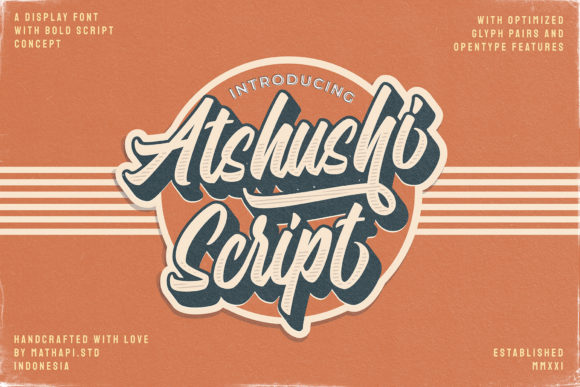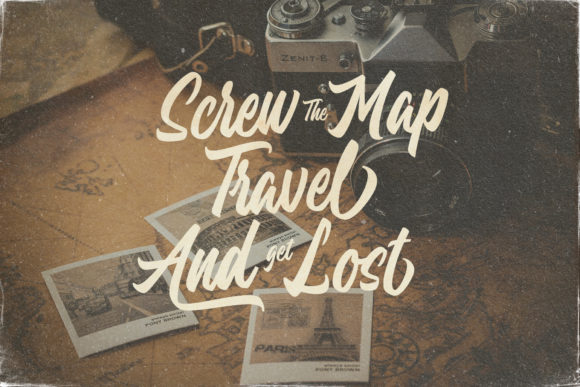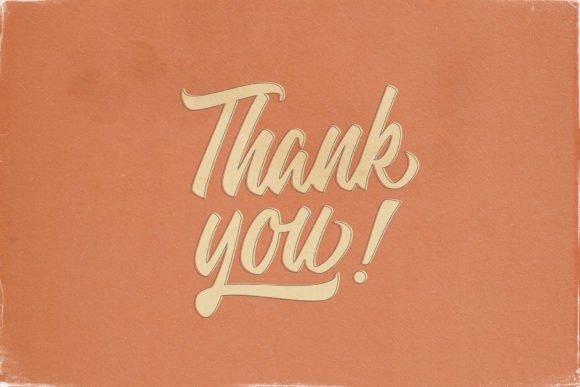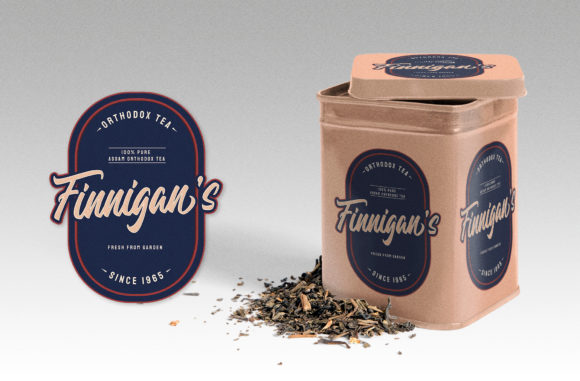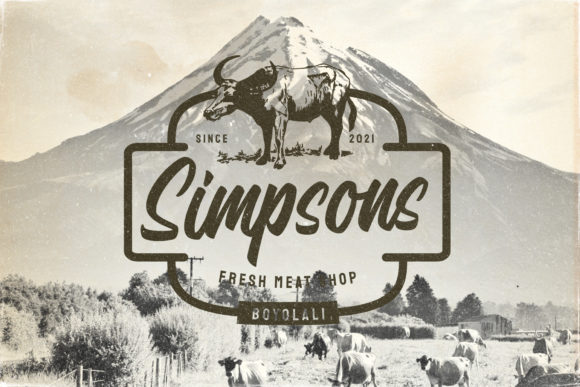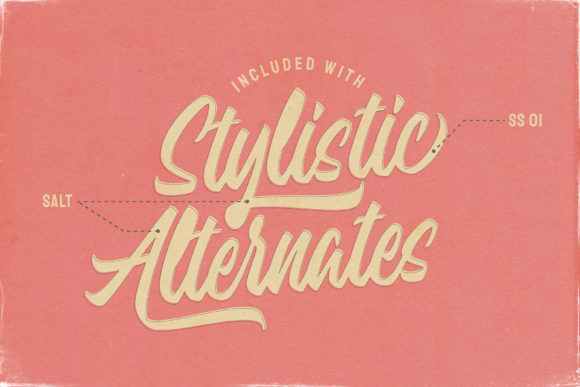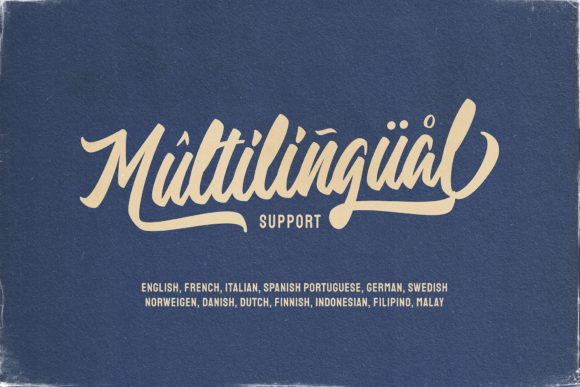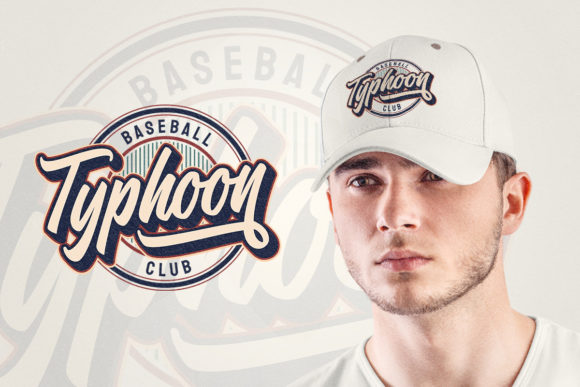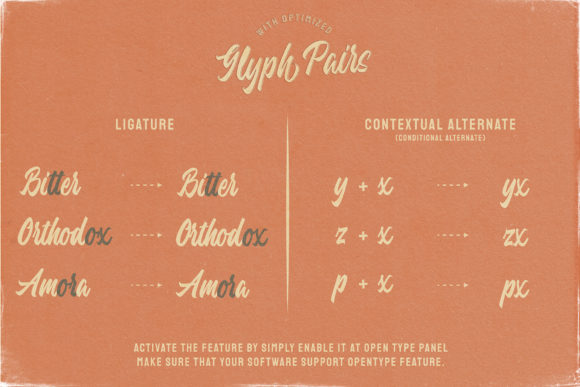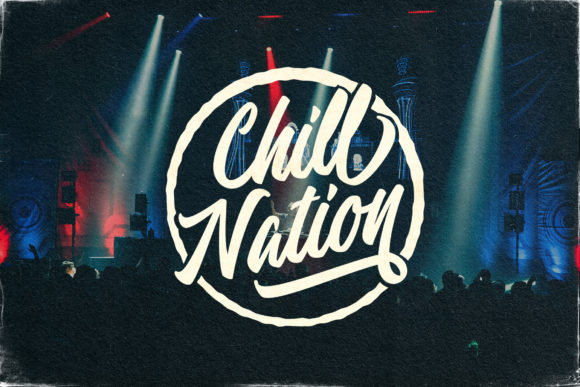
Atshushi Script Font
About Atshushi Script Font
Atshushi Script is a gorgeous and bold handwritten font, crafted to give your headlines and logotype projects a stylish touch. This font reads as strong, confident, and dynamic and can add tons of nostalgic character to your designs.